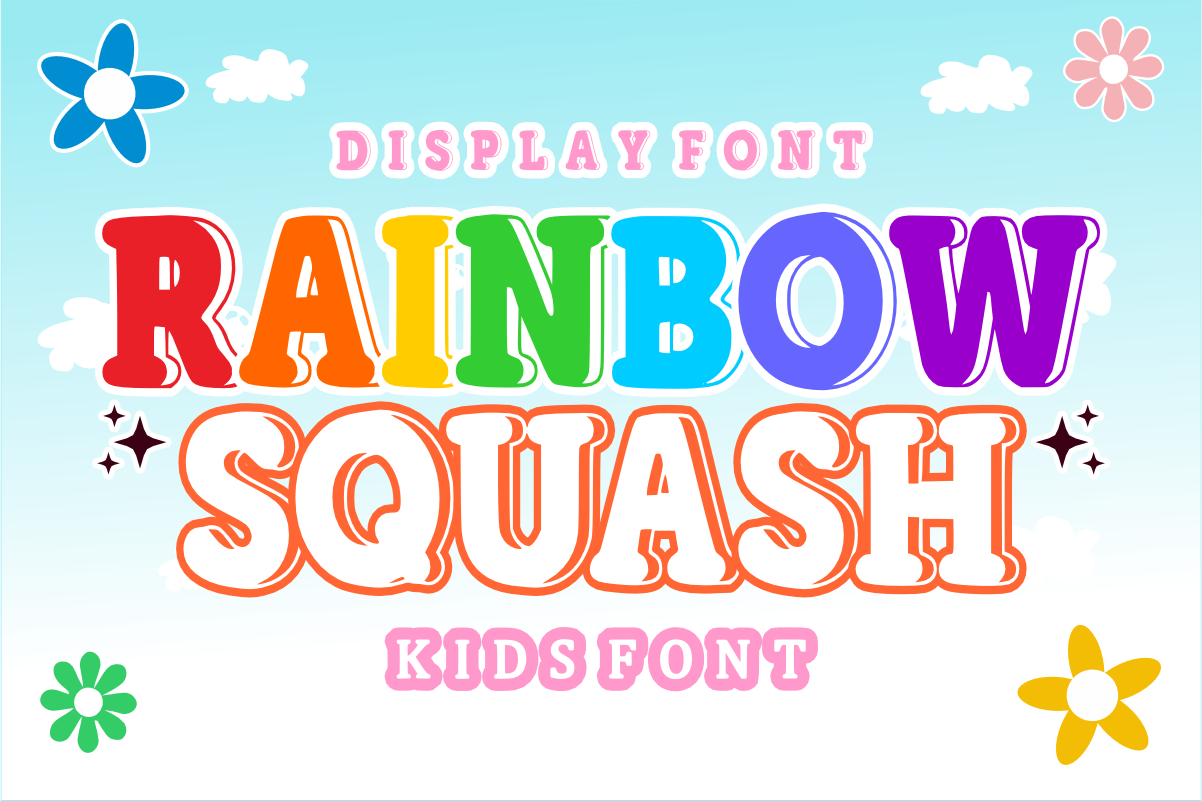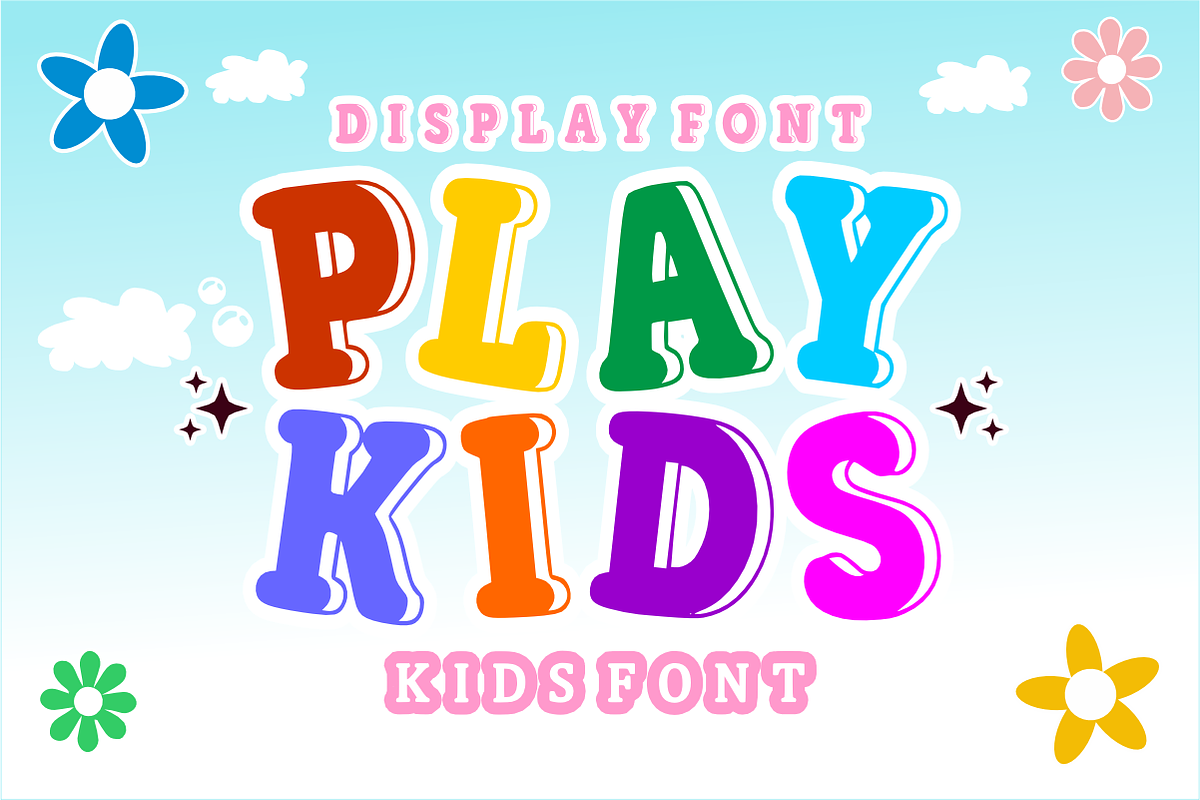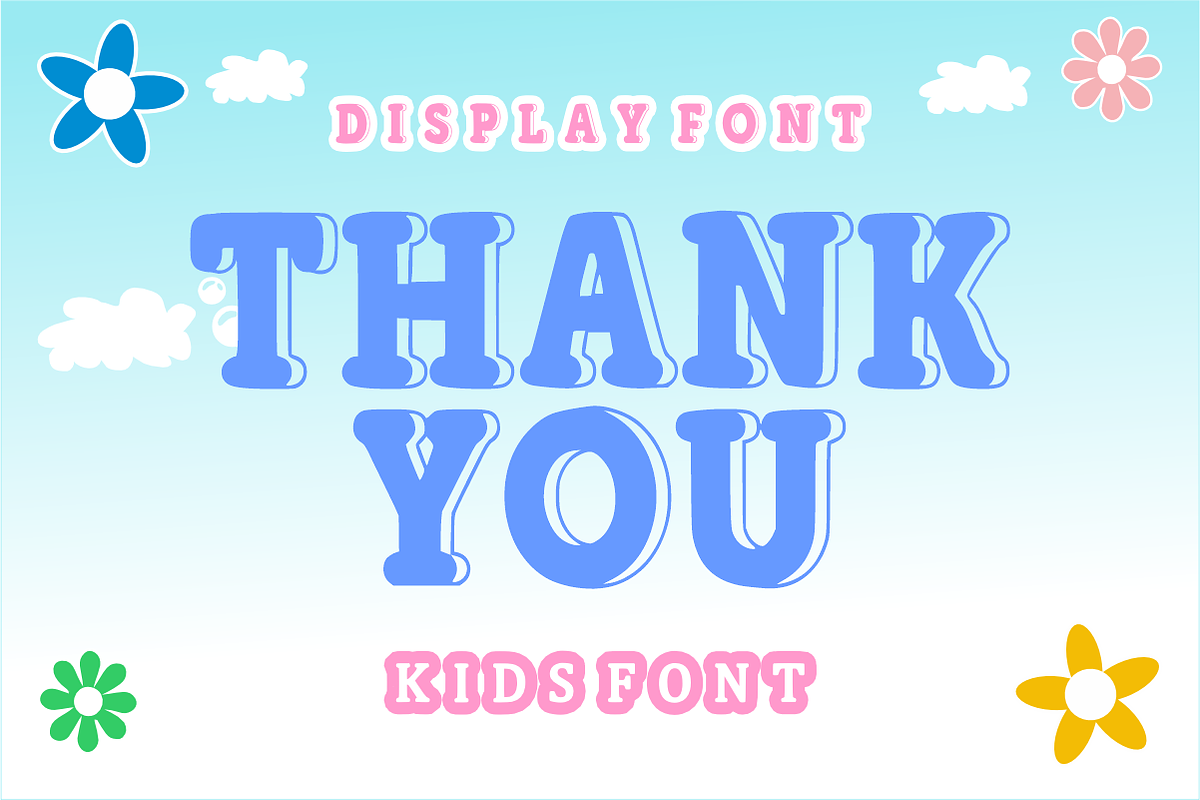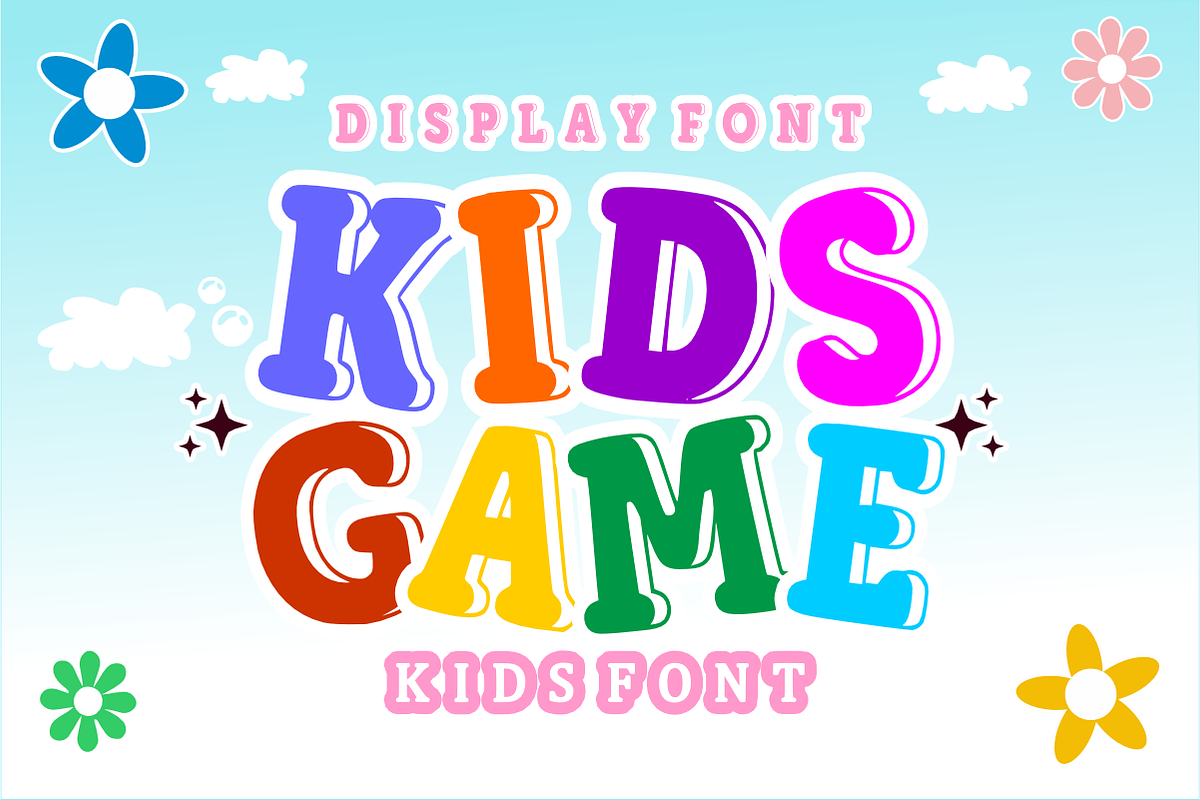
Rainbow Squash - Cute Playful Font
Rainbow Squash is a vibrant, ultra-chunky display font featuring a playful bubble style with cute inner highlight accents. Bringing a joyful, retro groovy vibe, this puffy font is perfect for colorful kids' designs, nursery decor, and cheerful school projects. Every character is cleanly vectorized to guarantee smooth, effortless cutting on Cricut and Silhouette machines.
Rainbow-themed birthday party invitations, banners, and cake toppers
Custom die-cut stickers, labels, and vibrant planner decals
Kids' apparel, baby onesies, and playful t-shirt prints
Classroom decorations, school posters, and teacher resources
Retro groovy branding, toy packaging, and cartoon logos
Cricut, Silhouette, and DIY vinyl crafting projects